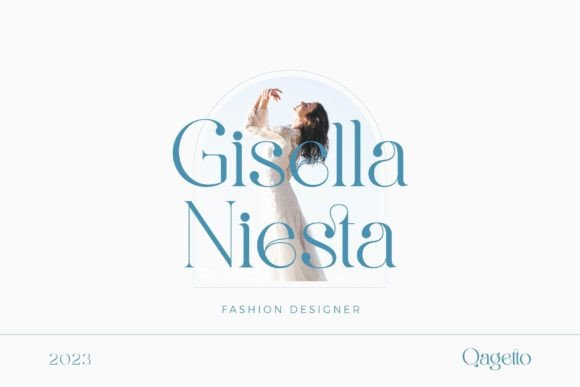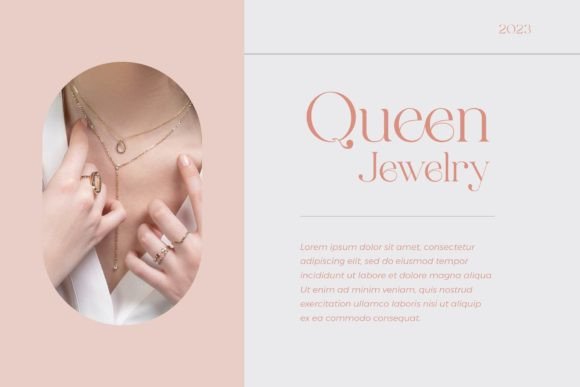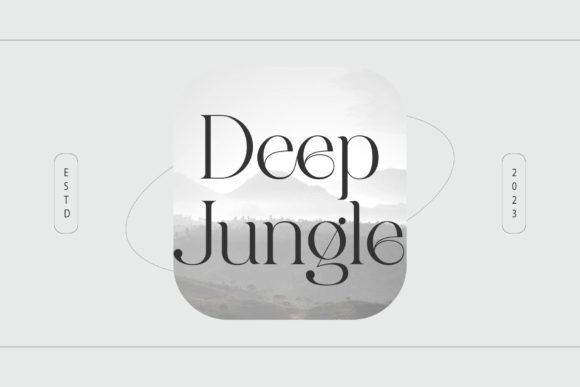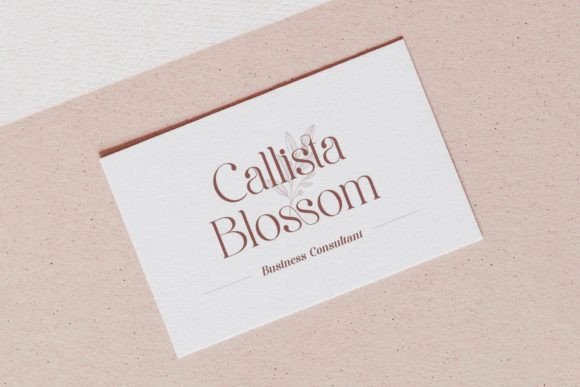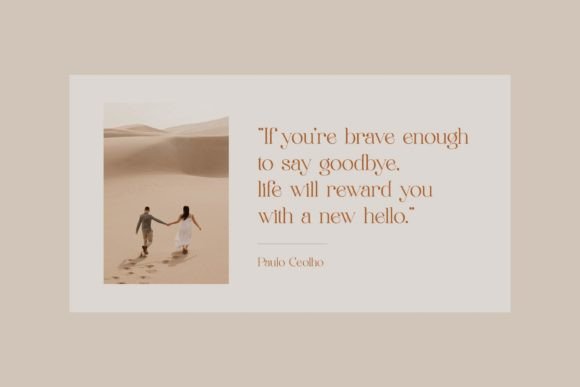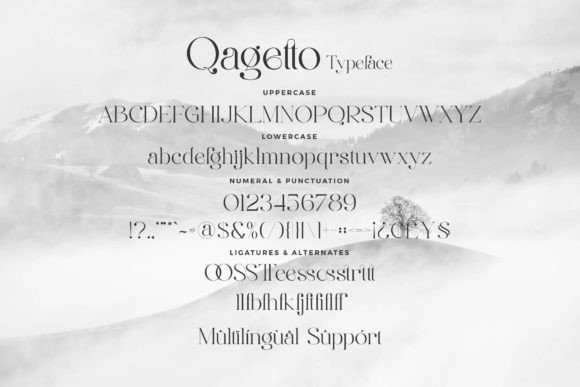
Introduction to Qagetto Font
Qagetto is a modern and stylish serif font inspired by the famous minimalist logo perfect for the purposes of designing templates, brochures, videos, advertising branding, logos, and more.
Key Features of Qagetto Font